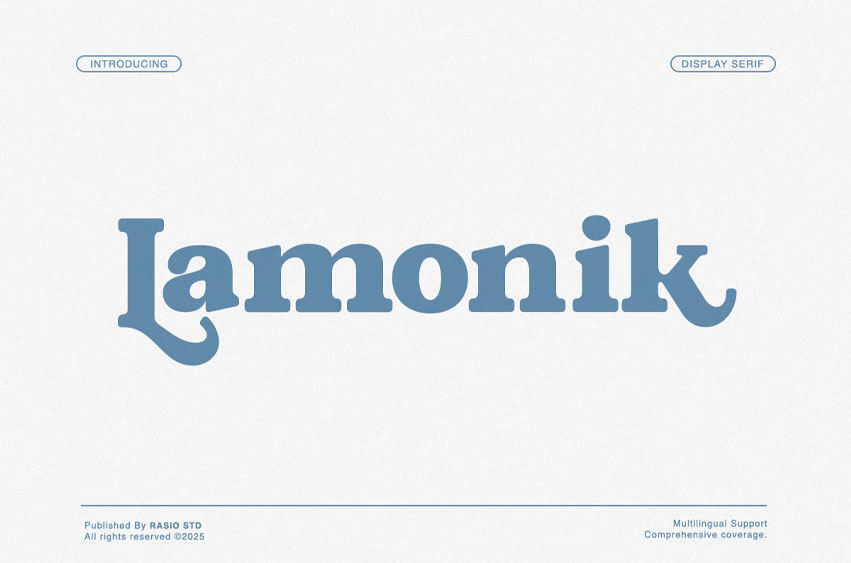
Lamonik Font
Lamonik Font is a bold and stylish modern display serif typeface that combines contemporary design with classic serif charm. Featuring sturdy letterforms, distinctive curves, and eye‑catching terminals, Lamonik brings character and impact to large‑scale typography. This font includes a full set of uppercase and lowercase characters, numerals, punctuation, and essential symbols, along with multilingual support. Lamonik’s unique personality makes it perfect for branding, packaging, headlines, posters, editorial layouts, and visual identities that require elegant yet expressive typography.
Relevance and Use Cases is perfect for designers and brands seeking a standout serif voice with both strength and character. Its bold forms and modern curves make it perfect for editorial layouts, fashion branding, premium packaging, posters, social media graphics, logotypes, and any project where striking display text is needed.